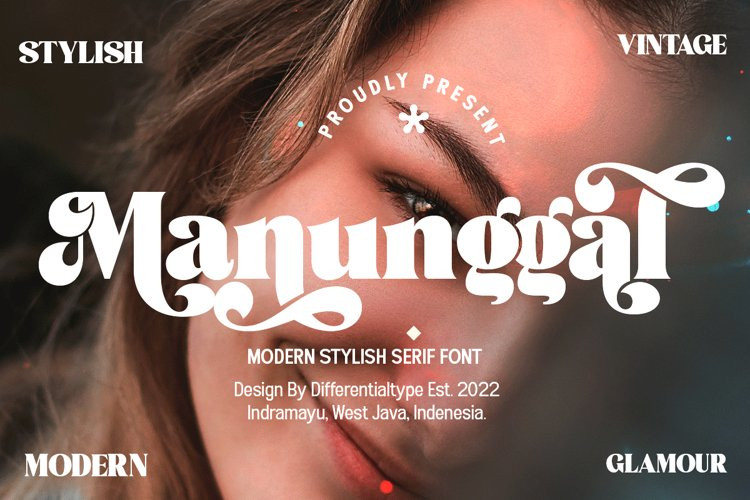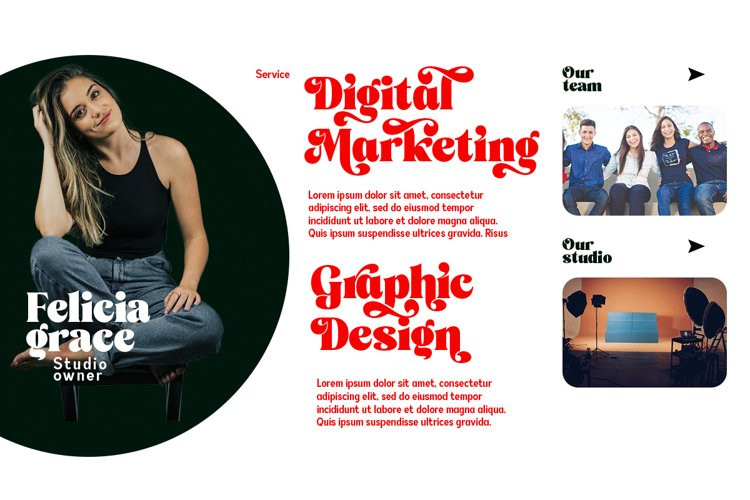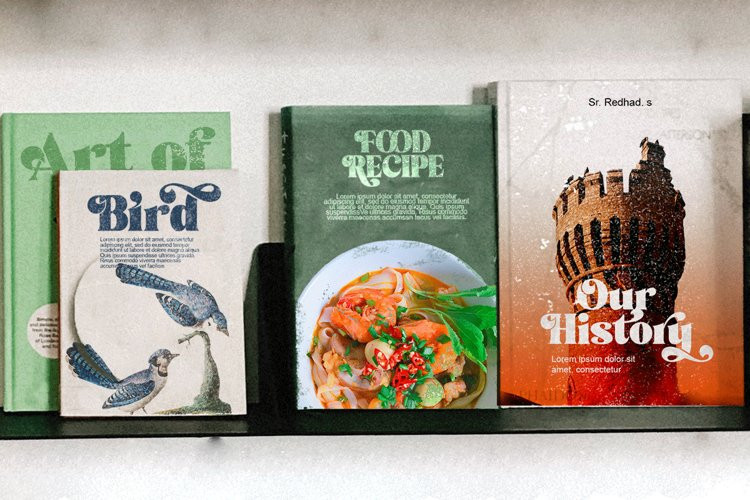
Manunggal Font
Manunggal FontManunggal is a cool, stylish, modern and fun serif display font. This font is great for headlines, magazines, logos, branding and more!